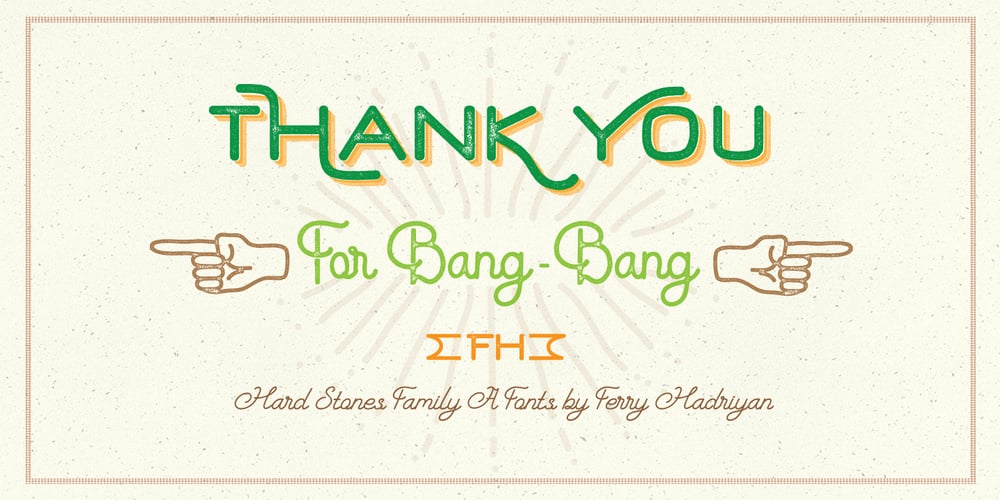
Hard Stones Pro Font Family was designed by Ferry Hadriyan and published by FHFont. Hard Stones Pro contains 9 styles and family package options. Hard Stones include sans, display, and script, retro combination with layered font, clean and rough vintage authentic style, Suitable for design, element design, event, t-shirt, logo, badges, sticker, and awesome work.